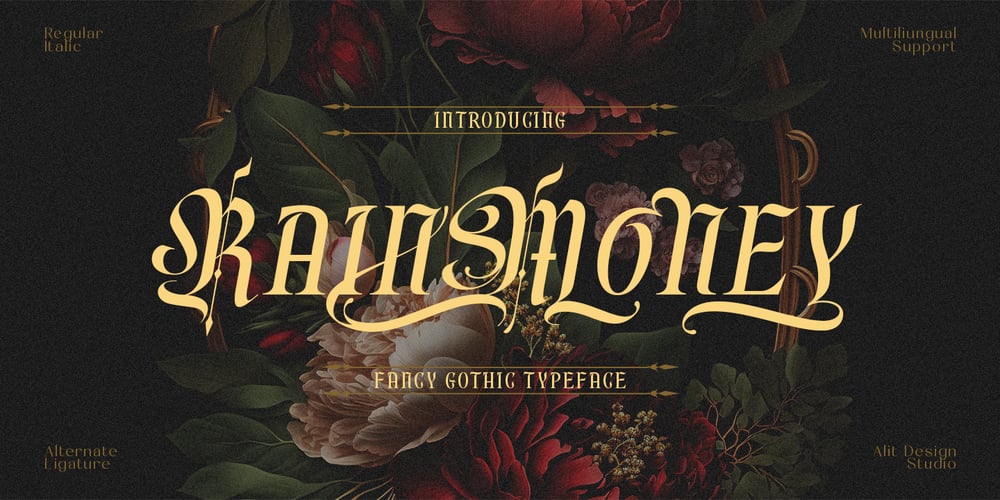
Rainmoney Font Family was designed by Alit Suarnegara and published by Alit Design. Rainmoney contains 2 styles and family package options. “Rain Money” is a unique font designed with a concept of dark beauty and modern style. The font combines elements of both modern serif and blackletter styles, creating a striking and distinctive appearance. With a total of 717 glyph characters, including rare ligatures and swashes, this font is perfect for creating bold and impactful designs.The font also supports PUA unicode and multilingual characters, making it suitable for use in a variety of languages and settings. Whether you’re designing logos, posters, or other graphics, “Rain Money” is sure to make a lasting impression.Language Support : Latin, Basic, Western European, Central European, South European,Vietnamese.In order to use the beautiful swashes, you need a program that supports OpenType features such as Adobe Illustrator CS, Adobe Photoshop CC, Adobe Indesign and Corel Draw. but if your software doesn’t have Glyphs panel, you can install additional swashes font files.